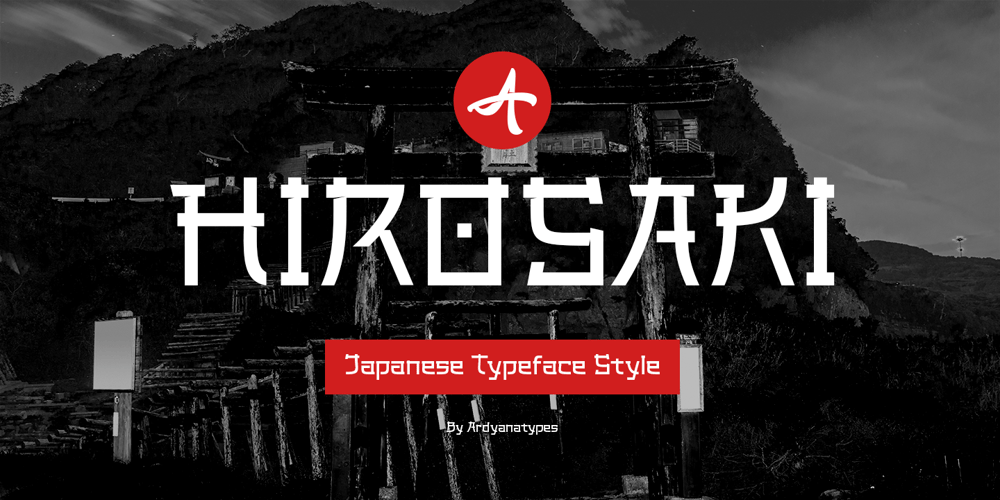
Hirosaki Font Family was designed by Ardyana Putra and published by Ardyanatypes. Hirosaki contains 1 styles and family package options. Introducing Hirosaki Japanese Typeface Style inspired by Japanese letters, which have uniqueness and very thick characteristics that make all designs look unique and have a modern Japanese feel. Hirosaki has its charm, so it will be very suitable to be combined with any style. Have ligatures to add an excellent interactive feel to each design. Hirosaki is also equipped with multilingual support and is very easy to use. Hirosaki is exciting to use in formats such as books, film posters, logos, branding, business cards, and many more that can be combined with Hirosaki.Supports languages: Afrikaans, Albanian, Asu, Azerbaijani, Basque, Bemba, Bena, Bosnian, Breton, Catalan, Chiga, Colognian, Cornish, Croatian, Czech, Danish, Dutch, Embu, English, Estonian, Faroese, Filipino, Finnish, French, Friulian, Galician, Ganda, German, Gusii, Hungarian, Icelandic, Igbo, Inari Sami, Indonesian, Irish, Italian, Jola-Fonyi, Kabuverdianu, Kalaallisut, Kalenjin, Kamba, Kikuyu, Kinyarwanda, Latvian, Lithuanian, Low German, Lower Sorbian, Luo, Luxembourgish, Luyia, Machame, Makhuwa-Meetto, Makonde, Malagasy, Malay, Maltese, Manx, Meru, Metaʼ, Morisyen, North Ndebele, Northern Sami, Norwegian Bokmål, Norwegian Nynorsk, Nyankole, Oromo, Polish, Portuguese, Quechua, Romanian, Romansh, Rombo, Rundi, Rwa, Samburu, Sango, Sangu, Scottish Gaelic, Sena, Shambala, Shona, Slovak, Slovenian, Soga, Somali, Spanish, Swahili, Swedish, Swiss German, Taita, Teso, Thai, Turkish, Turkmen, Upper Sorbian, Vietnamese, Vunjo, Walser, Welsh, Western Frisian, Wolof, Yoruba, ZuluFeatures: A – Z Character Set a – z Characters set Numerals & Punctuations (OpenType Standard) Multilingual Thank you, and have a nice day